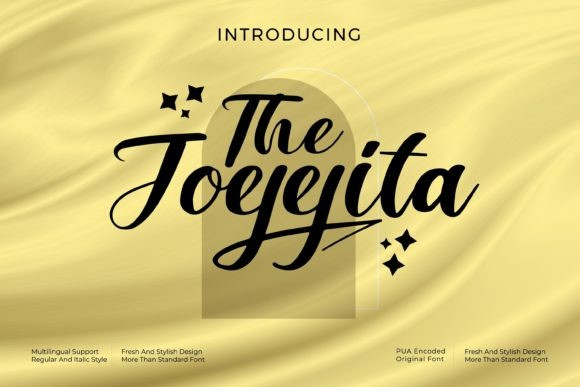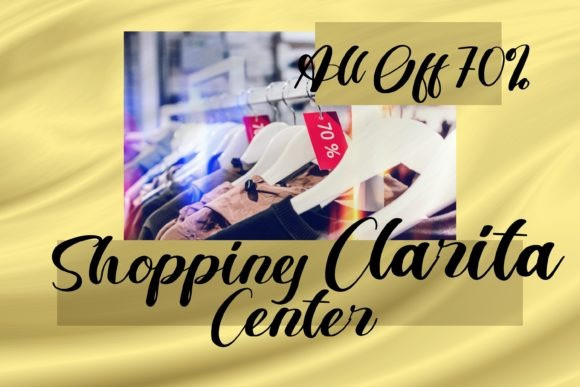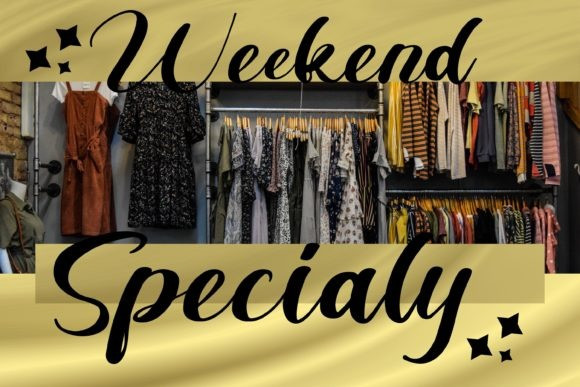
The Joejeita Font
The Joejeita is a lovely script font featuring charming, playful characters that seem to dance along the baseline. Add this font to your most creative ideas, and notice how it makes them stand out!